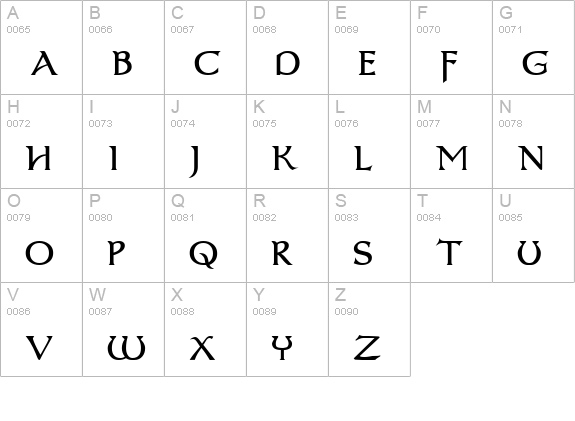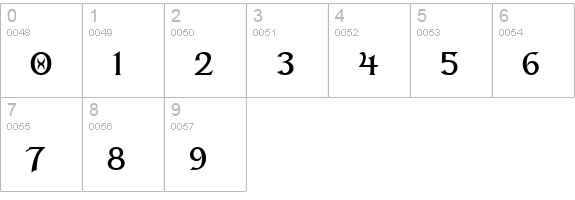
Dumbledor 3 is a whimsical and playful font that exudes charm and creativity. With its unique and eye-catching design, this font is perfect for adding a touch of magic to your projects. The graceful curves and elegant lines of Dumbledor 3 make it a versatile choice for various design purposes, from invitations to branding and beyond. The best part about Dumbledor 3 font is that it is completely free to download at FontsMarket.com. You can easily access this delightful font and use it to bring your creative visions to life without any cost. So why wait? Add a dash of enchantment to your designs with Dumbledor 3 today!